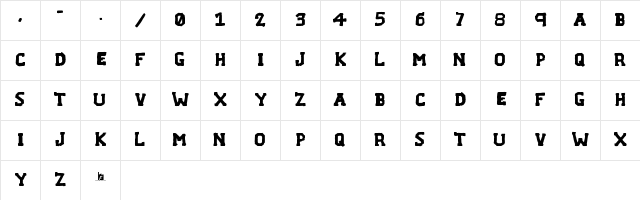
Complete F... VERMONT Regular glyph index. Displaying only characters natively supported by F... VERMONT Regular font.
F... VERMONT is a composed and adaptable typeface that performs quietly and consistently across a wide range of design contexts.
Pro Tip: Use F... VERMONT in both headline and body roles to test its range before committing to a single application.